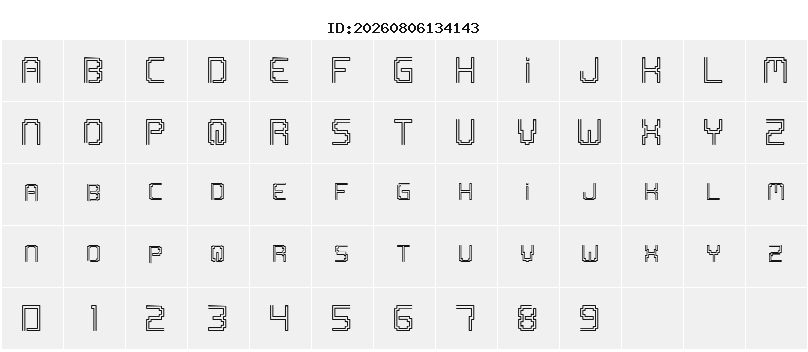
OpenMind Preview
• Copyright: designed by Dieter Schumacher ©1999
About OpenMind.ttf
OpenMind.ttf is a modern, elegant sans-serif font designed for ultimate readability and visual harmony. Perfect for branding, headlines, web design, and print materials.